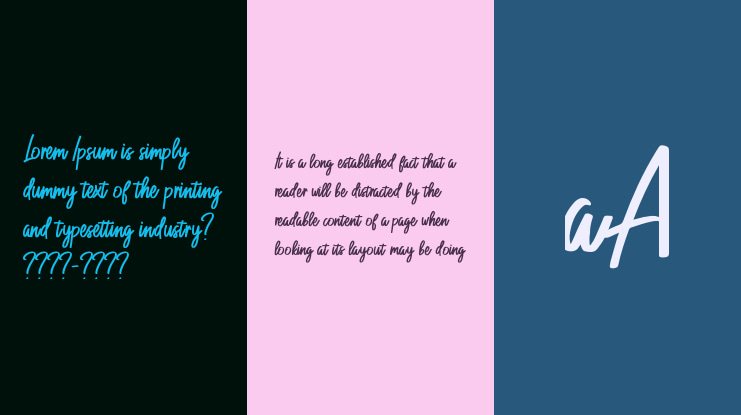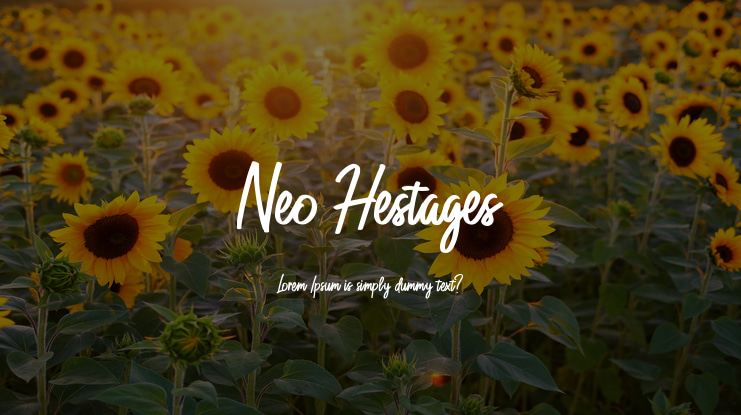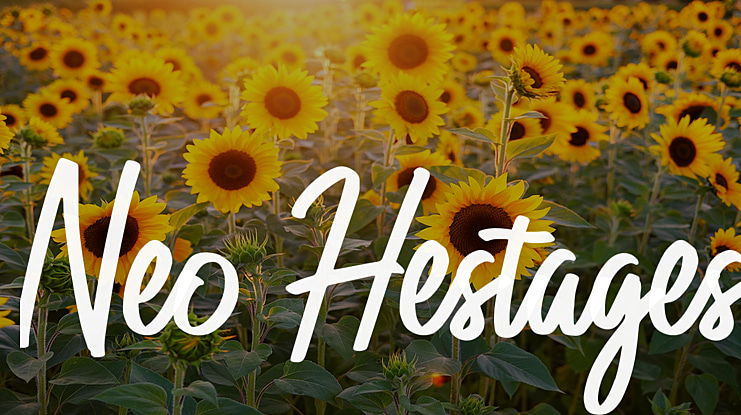
Neo Hestages Font
In this time many people like hand lettering and calligraphy but they can't do it, with this font you can make it easily and quickly.
Now let us introduce you our new font called "Neo Hestages Brush Handwritten Font"
Neo Hestages is a handwritten brush script font with a clear style and good flow This font is great for your next creative project such as Logotype, printed quotes, invitations, cards, product packaging, headers, Letterhead, Poster, Apparel Design, Label, and etc.